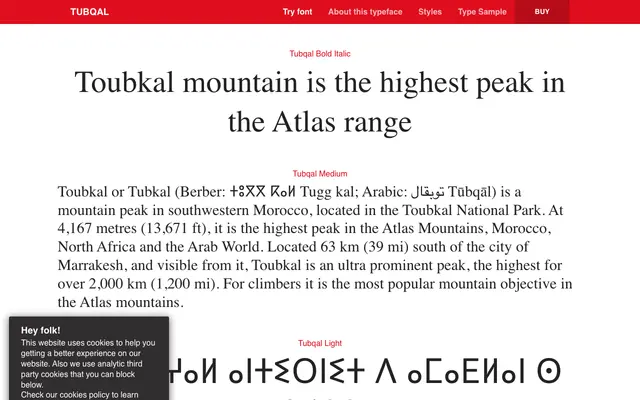
A tri-script family covering Latin, Arabic and Tifinagh, originally commissioned by the Khatt Foundation as part of a multiscript typographic research programme focused on the Maghrib region.
Developed from a Khatt Foundation commission within the Typographic Matchmaking in the Maghrib 3.0 project, Tubqal integrates three scripts into a coherent family of six weights with italics throughout. The design aims to reflect the linguistic diversity of the Maghrib, creating typographic harmony between Latin, Maghribi-based Arabic and the Tifinagh script used for Amazigh languages. The Tifinagh styles are offered free of charge to non-profit associations supporting Amazigh culture.
Tubqal is a multiscript humanist sans-serif family designed to harmonise Latin, Arabic and Tifinagh scripts within a coherent typographic system, with no apparent serif construction.